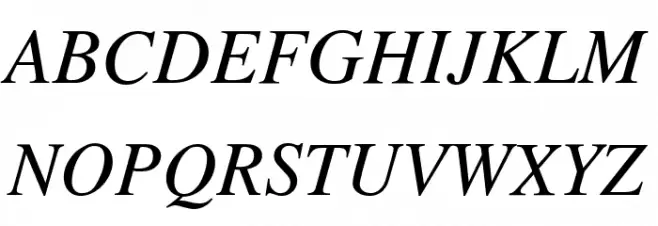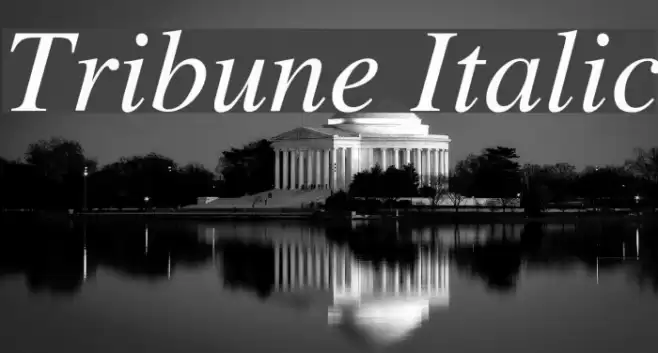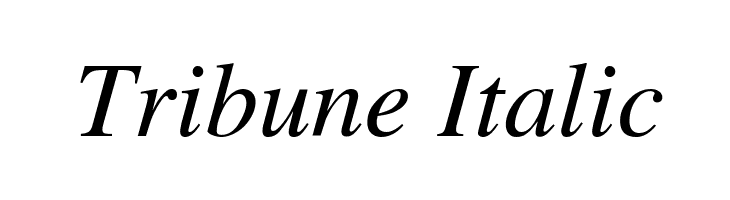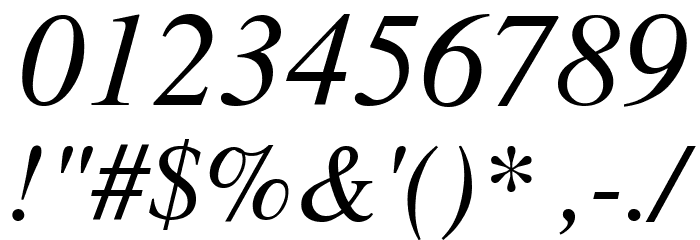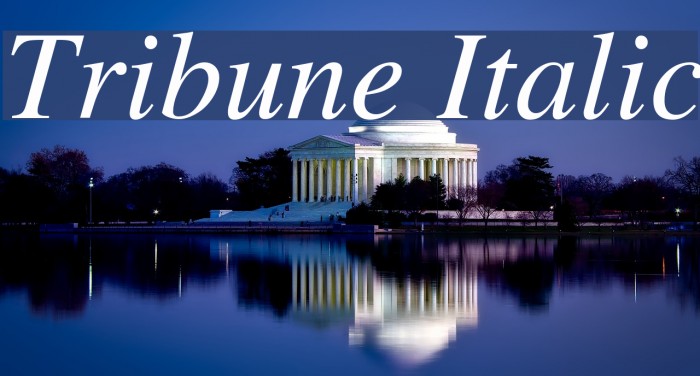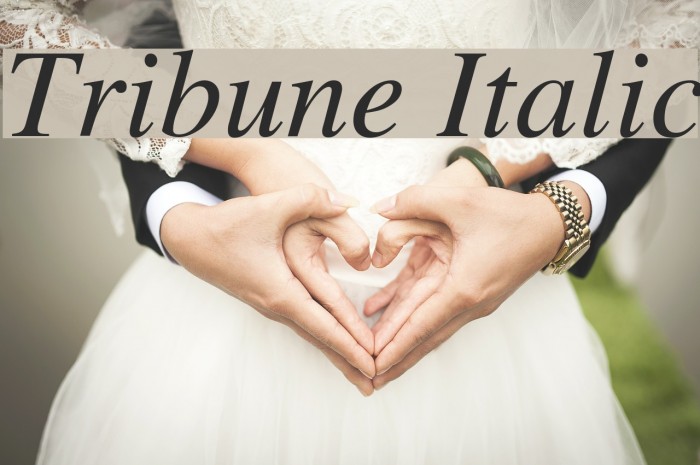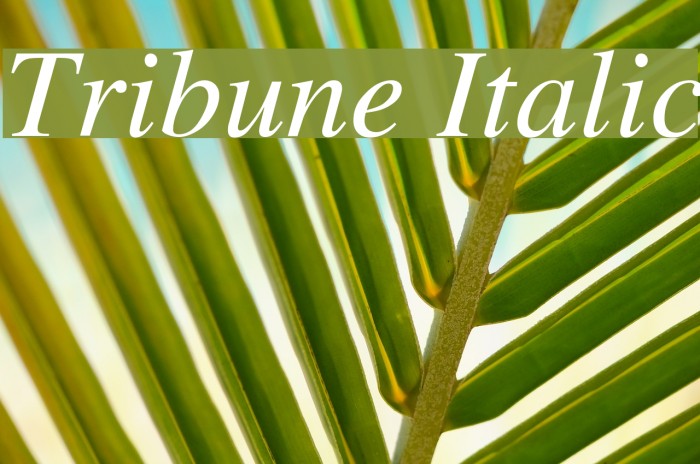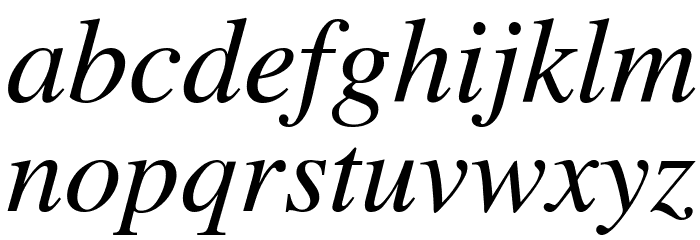
Tribune Italic
This font features a classic serif style with elegant, flowing italic characters. The serifs are pronounced, adding a touch of sophistication and tradition. The italic slant gives it a dynamic and graceful appearance, suitable for conveying a sense of movement and emphasis. The uppercase letters are stately and well-proportioned, while the lowercase letters maintain a consistent and harmonious flow. The numerals are clear and distinct, ensuring readability. Special characters are thoughtfully designed, maintaining the overall aesthetic of the font. This font is ideal for projects that require a formal and refined touch.
An elegant serif font with a classic italic style, perfect for formal use.
- Category: Serif
- Overall Style: Classic